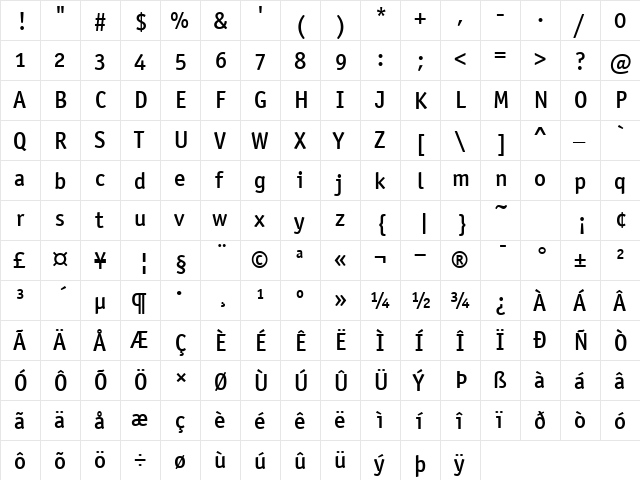
OfficinaSanOSITCTT Medium Font Preview
OfficinaSanOSITCTT Medium
| Foundry | International Typeface Corporation |
| Designer | Erik Spiekermann/Ole Schaefer |
Design Context for OfficinaSanOSITCTT Typeface
OfficinaSanOSITCTT offers clean, dependable letterforms without strong stylistic allegiance, making it a practical choice for designers who need flexibility.